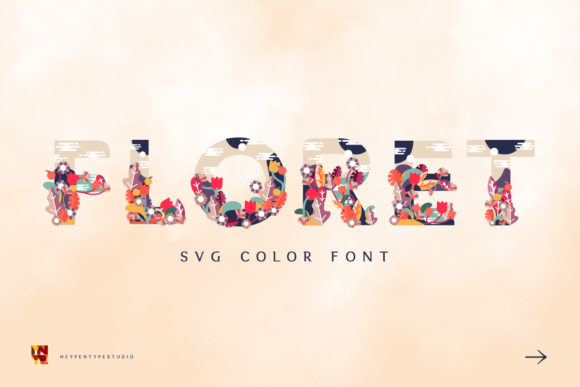
Step into a world of vibrant hues and captivating designs with Floret Font, the ultimate font family for vintage t-shirt enthusiasts. This extraordinary font, brought to life by the talented heypentype, is an explosion of color and creativity, ready to transform your summer projects into extraordinary masterpieces.
Unleash your imagination and let Floret Font guide you on a journey through time, capturing the essence of yesteryear with its meticulously crafted retro style. Its bold and playful characters dance across your designs, evoking a sense of nostalgia and wonder. Each letter is a brushstroke of artistry, adding a touch of whimsy and charm to your creations.
With Floret Font, you'll discover a symphony of colors, each shade more captivating than the last. From the soft pastels of a summer sunset to the vibrant hues of a tropical paradise, Floret Font brings life to your designs. Let your creativity soar as you mix and match colors, creating endless combinations that reflect your unique style.
Embrace the vintage charm of Floret Font and watch as your t-shirts become conversation starters wherever you go. Its timeless appeal will capture hearts and spark memories, making every piece of clothing a cherished keepsake. Whether you're a seasoned designer or just starting out, Floret Font is your gateway to creating designs that stand out from the crowd.